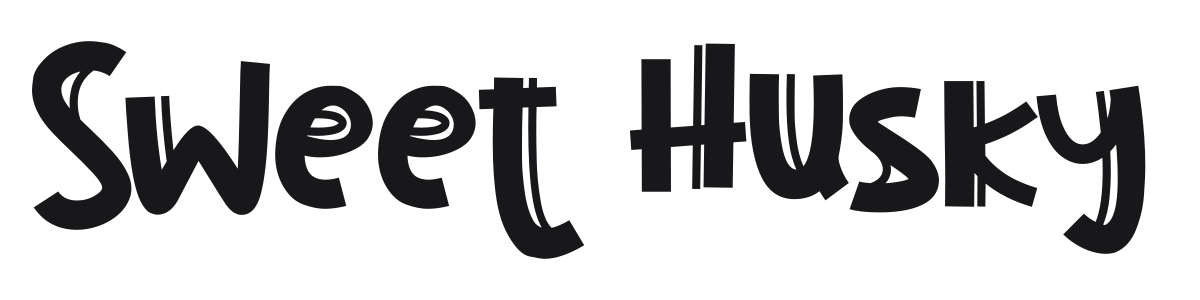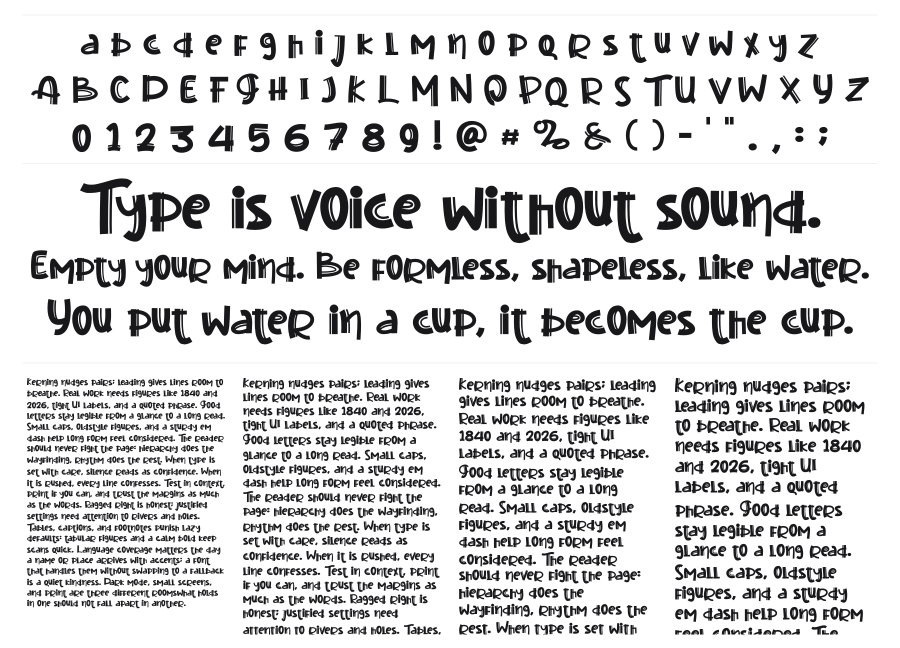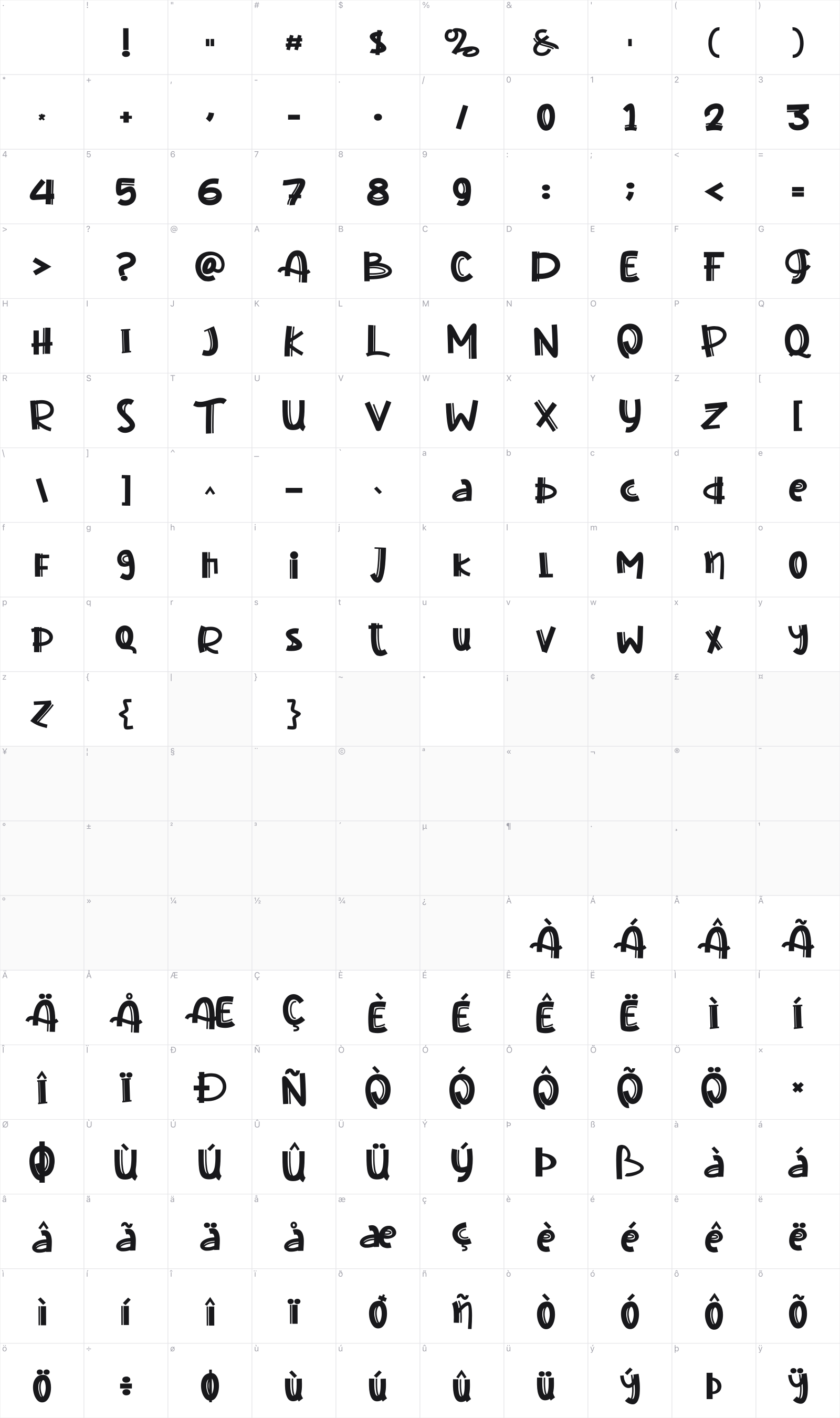
Sweet Husky
Sweet Husky is a bold, cartoonish display font with irregular mixed-height characters that give it a lively, hand-drawn energy. Each character feels individually constructed, with chunky strokes, looping details, and unpredictable proportions that keep the eye moving. It works best at large sizes where its playful character can fully express itself.